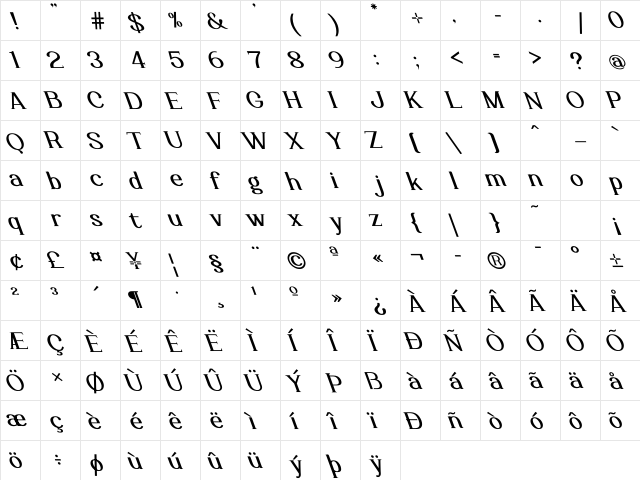
Luimp Bold Oblique Bold
Design Context for Luimp Bold Oblique Typeface
Luimp Bold Oblique is a composed and adaptable typeface that performs quietly and consistently across a wide range of design contexts. The slanted form adds forward momentum and visual energy. Its bold stroke weight gives it real presence on the page.
Pro Tip: Try Luimp Bold Oblique for annotation and caption copy alongside an upright companion — the contrast in angle creates a dynamic but ordered typographic system.